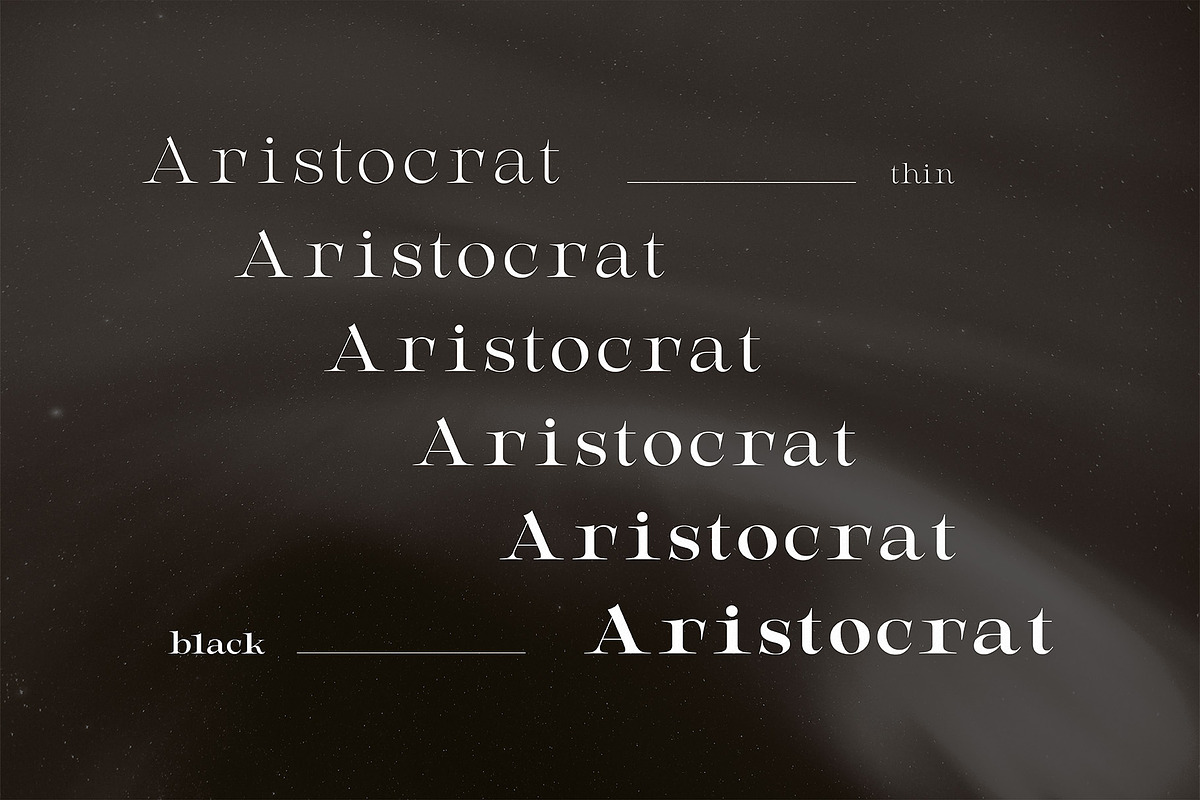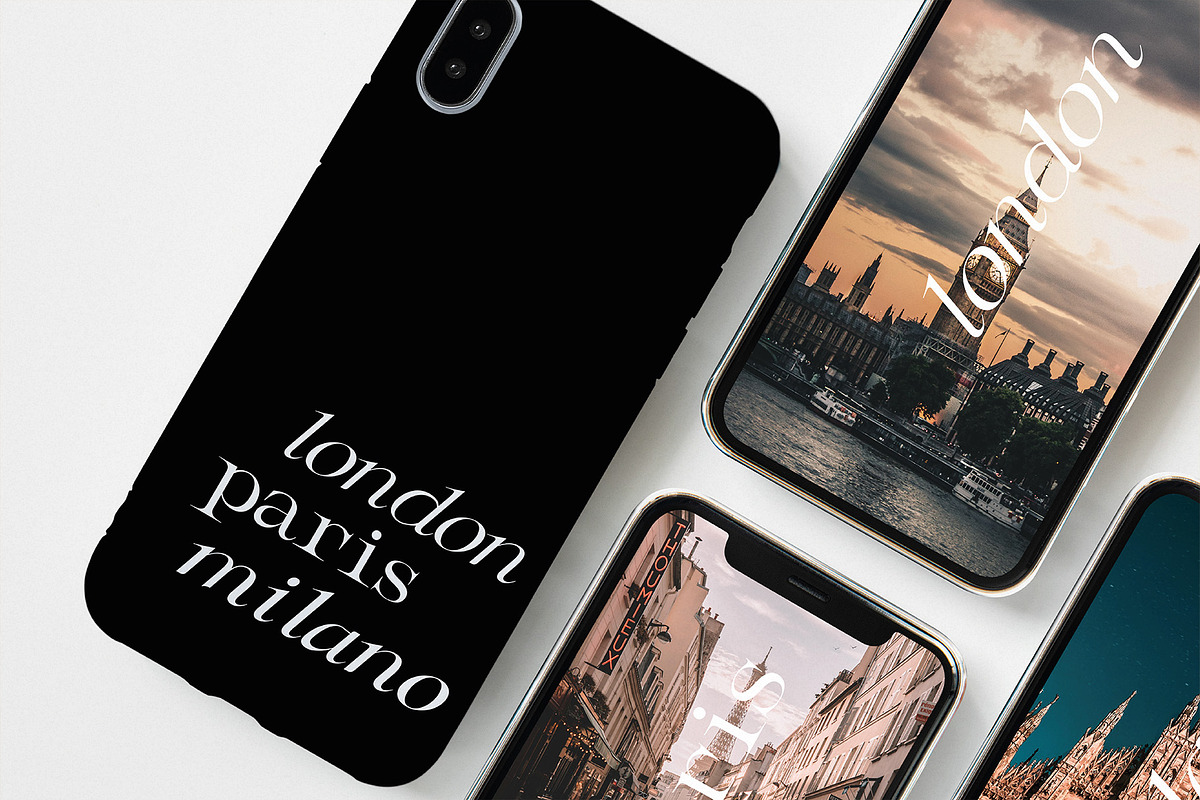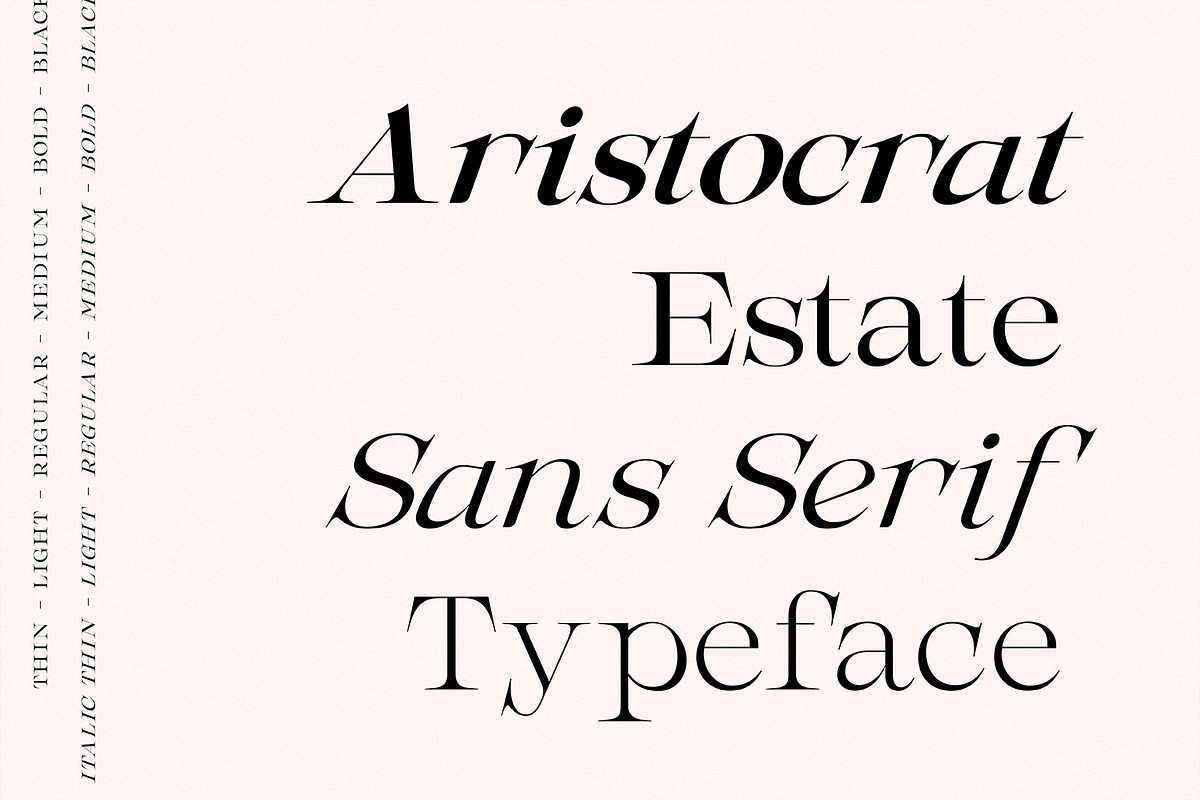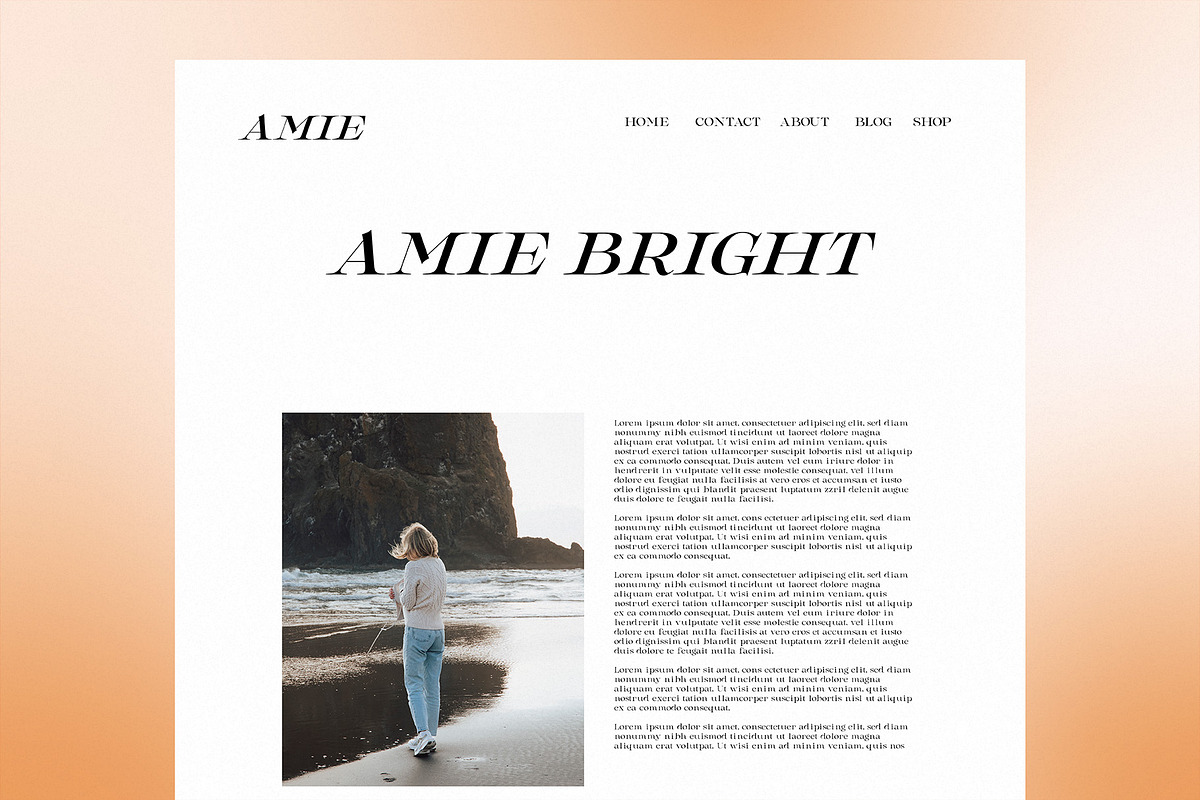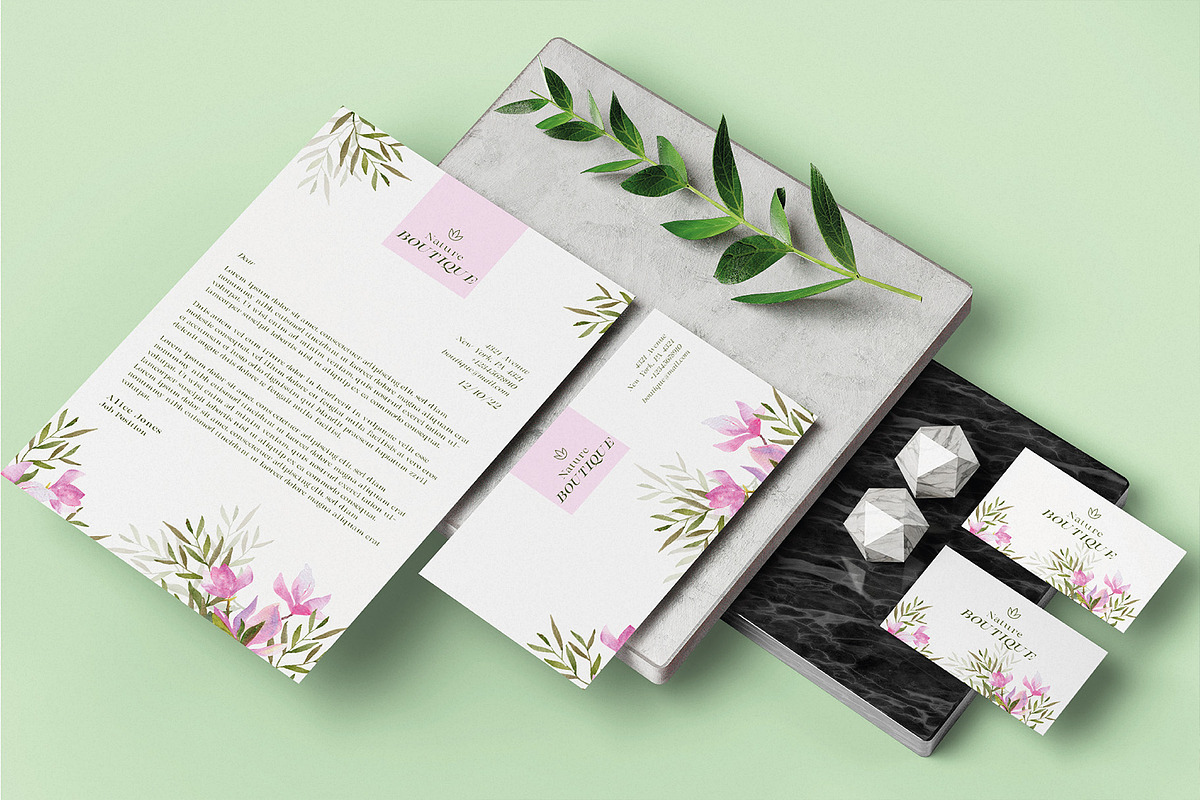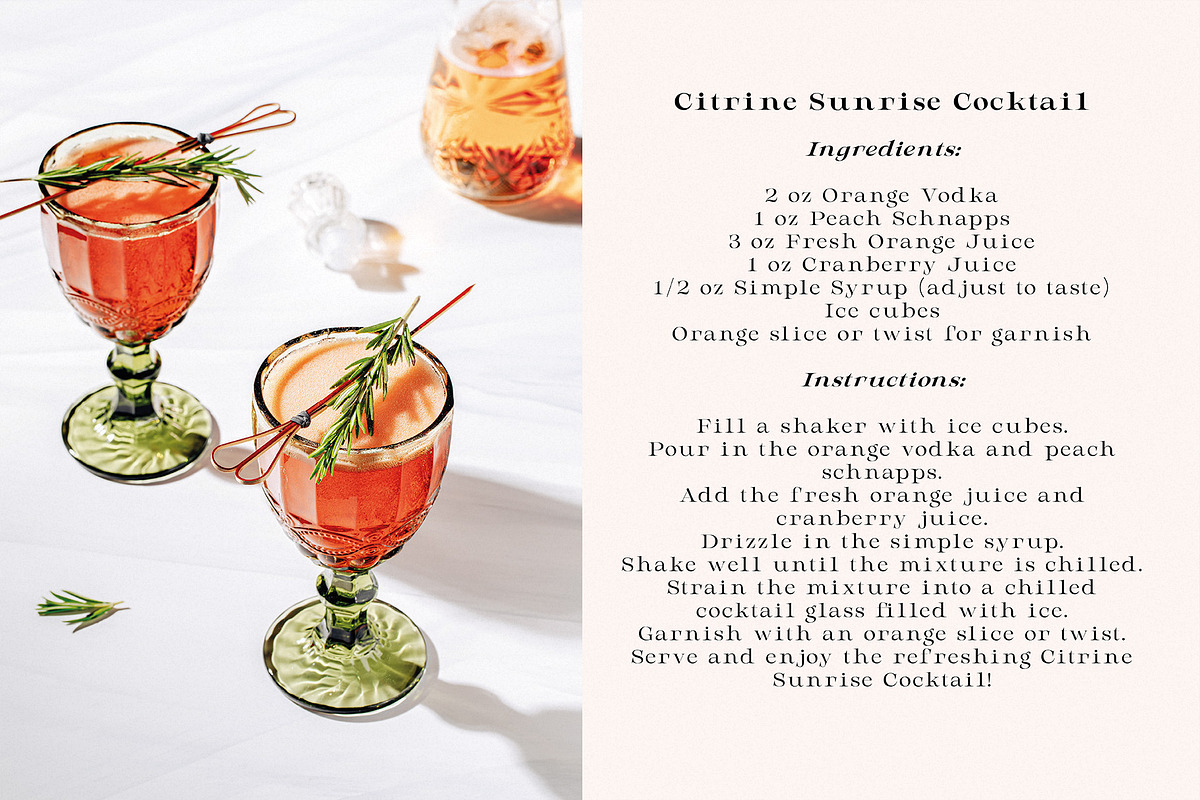
AristocratEstate - Luxury Serif Type
Introducing AristocratEstate, an opulent and exquisite serif typeface that epitomizes sophistication and luxury. With a range of 12 meticulously crafted weights, this font exudes an air of timeless elegance, making it the perfect choice for projects that demand an upscale aesthetic. The meticulously designed serifs and graceful letterforms evoke a sense of refinement and class, reminiscent of the grandeur of a stately estate.
From delicate light weights to commanding bold weights, AristocratEstate offers versatility that suits both formal and contemporary contexts, whether it's high-end branding, editorial layouts, or invitations. Elevate your design with this font and evoke an aura of aristocratic splendor that resonates with those who appreciate the finer things in life.